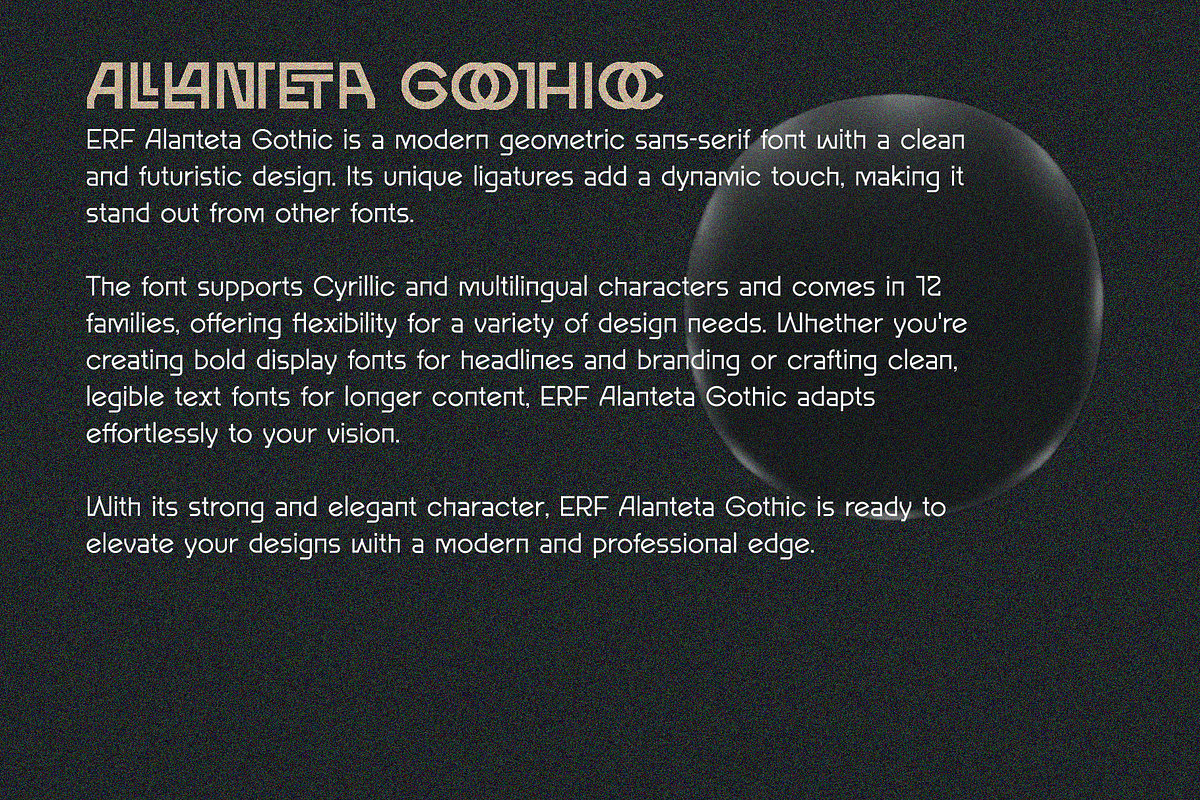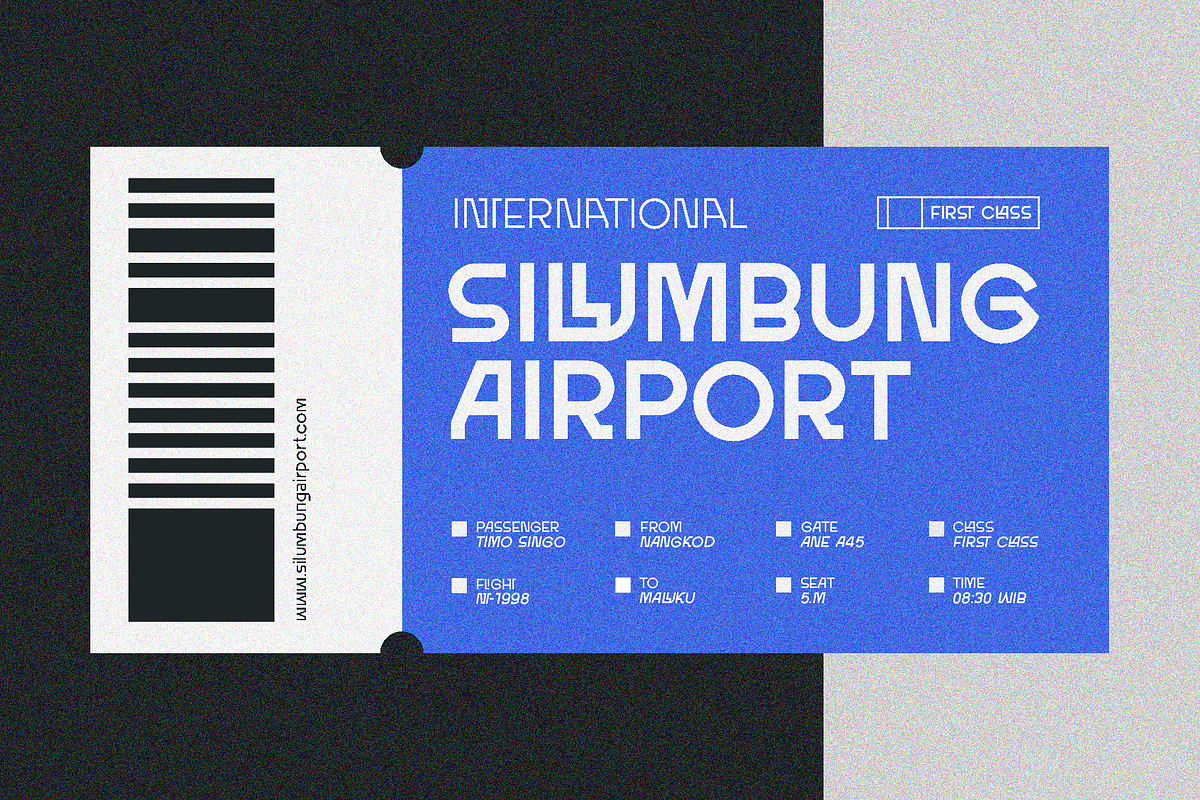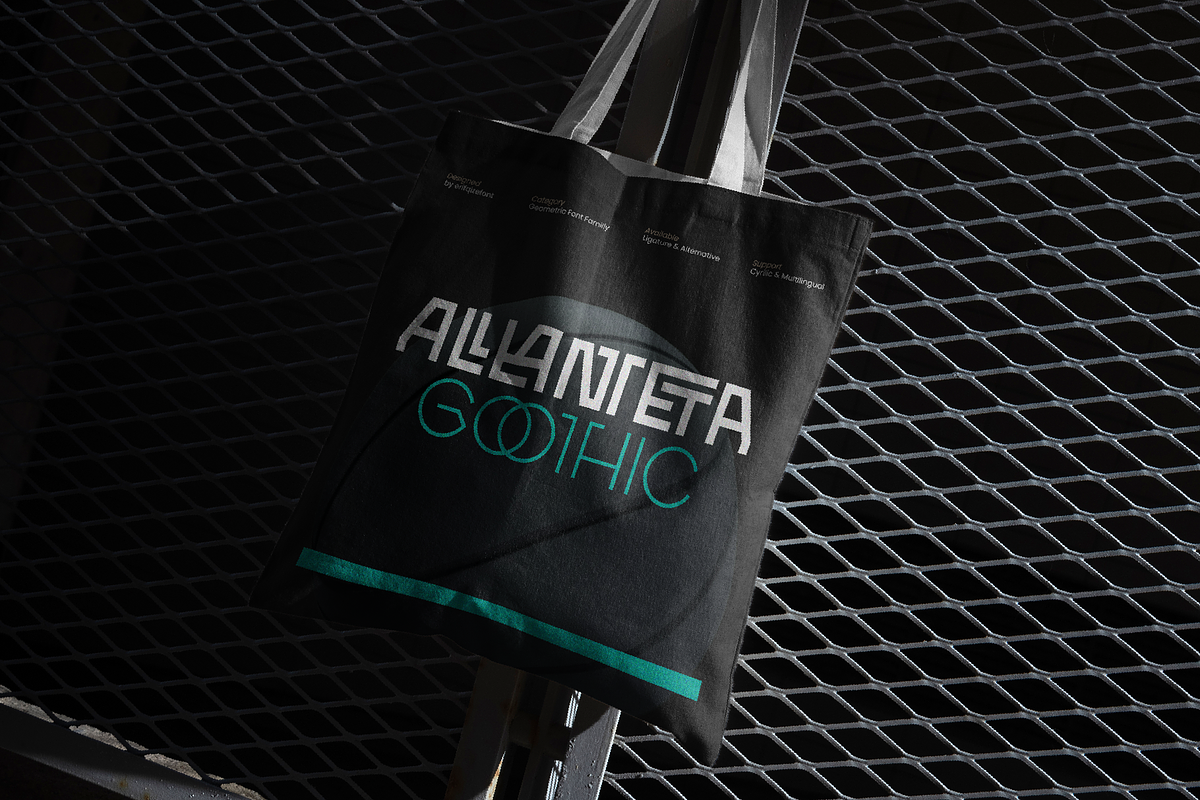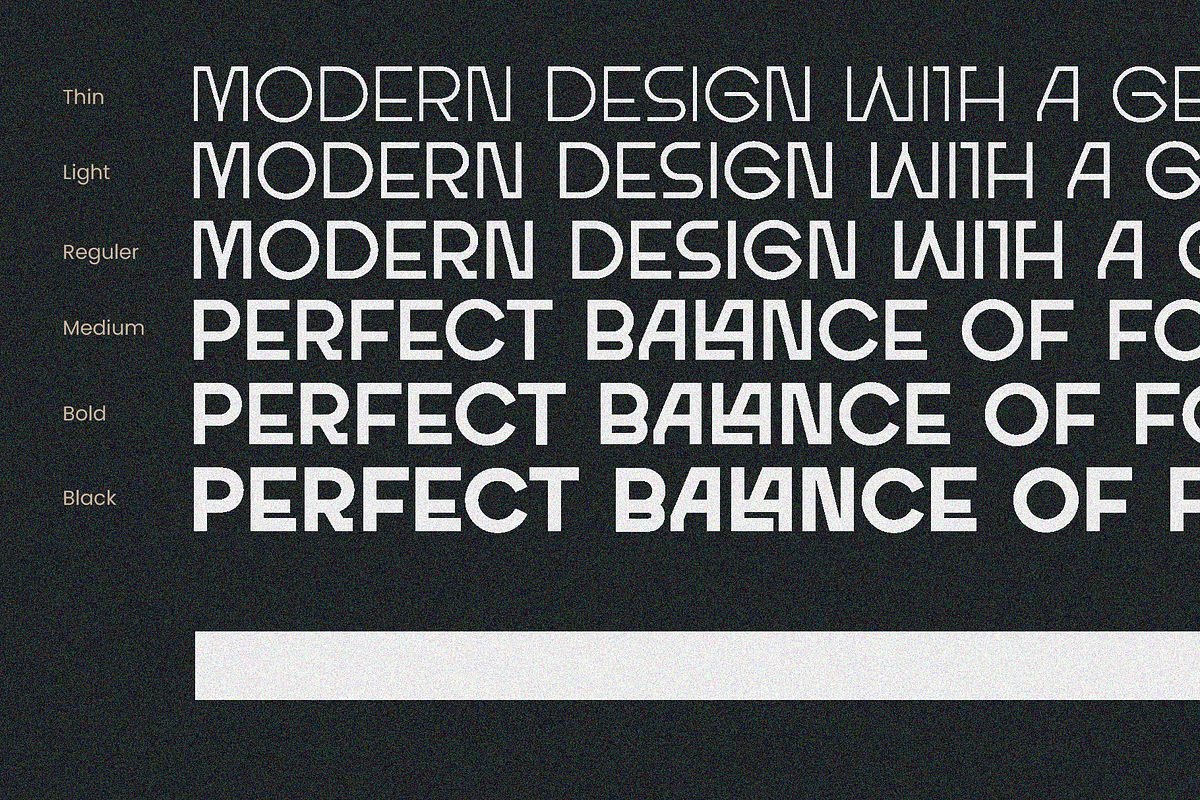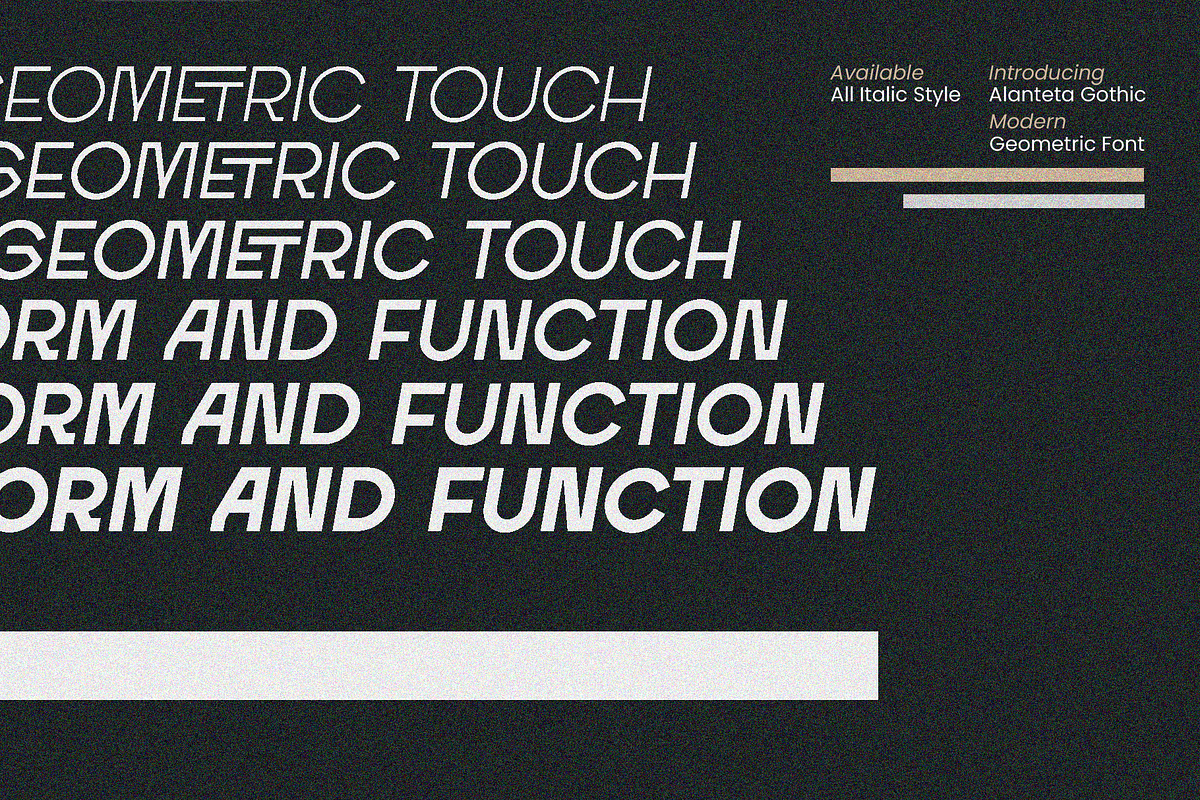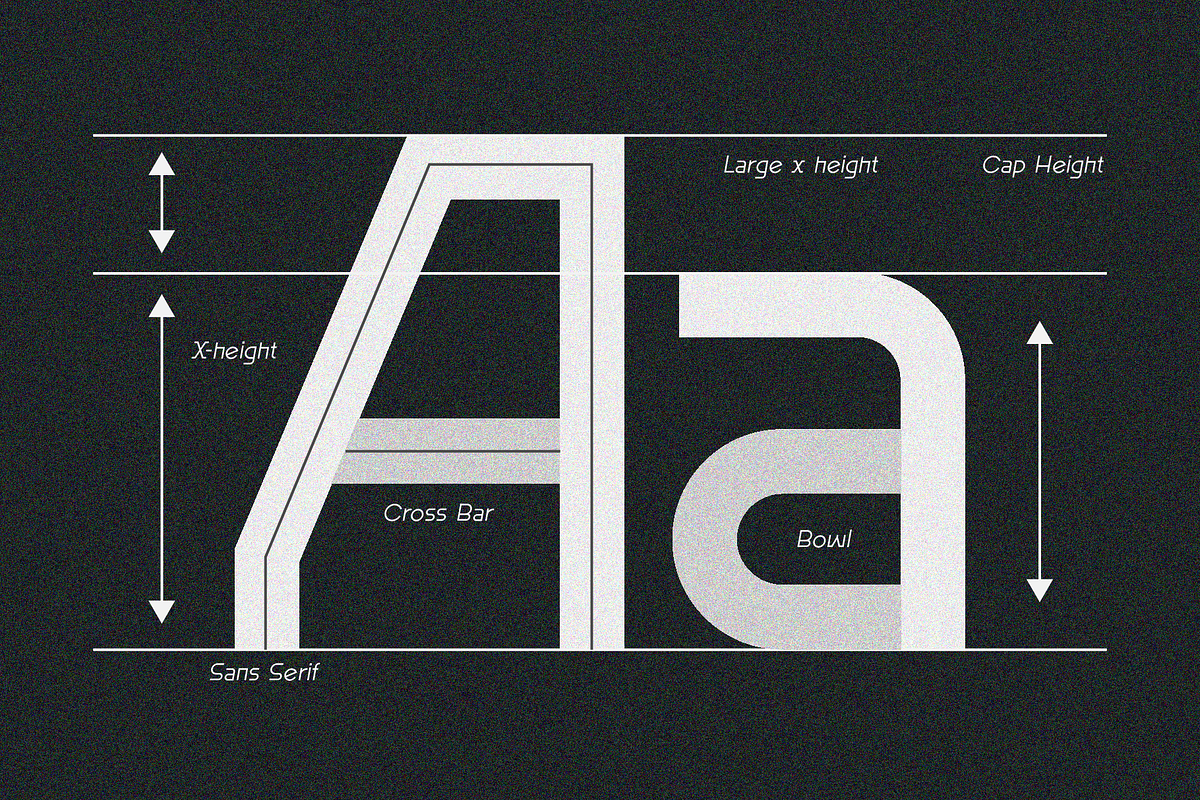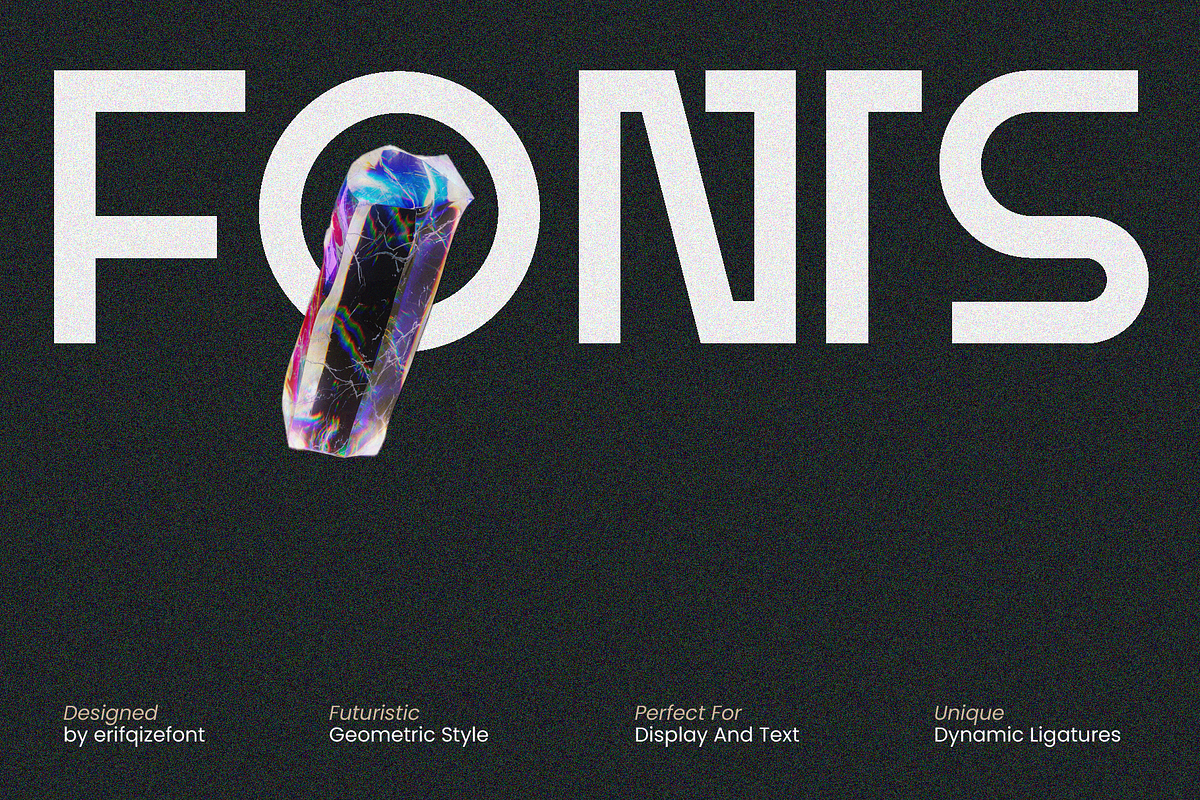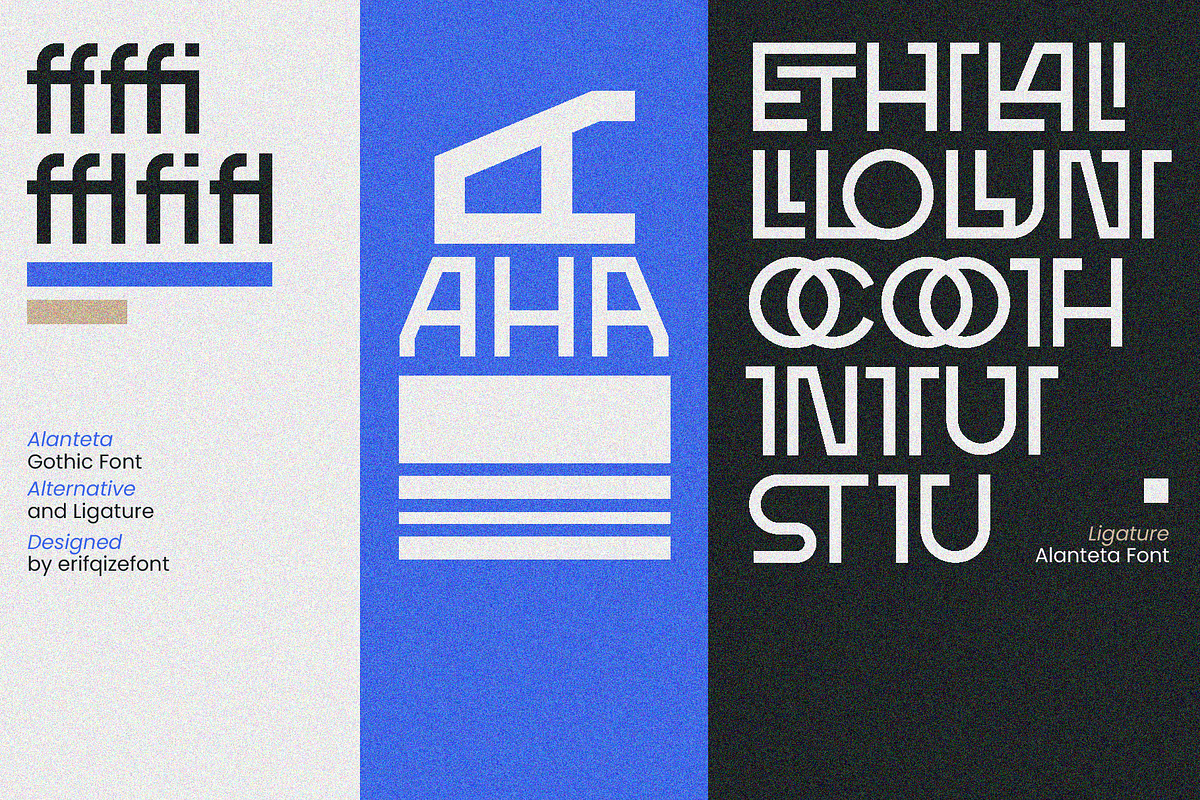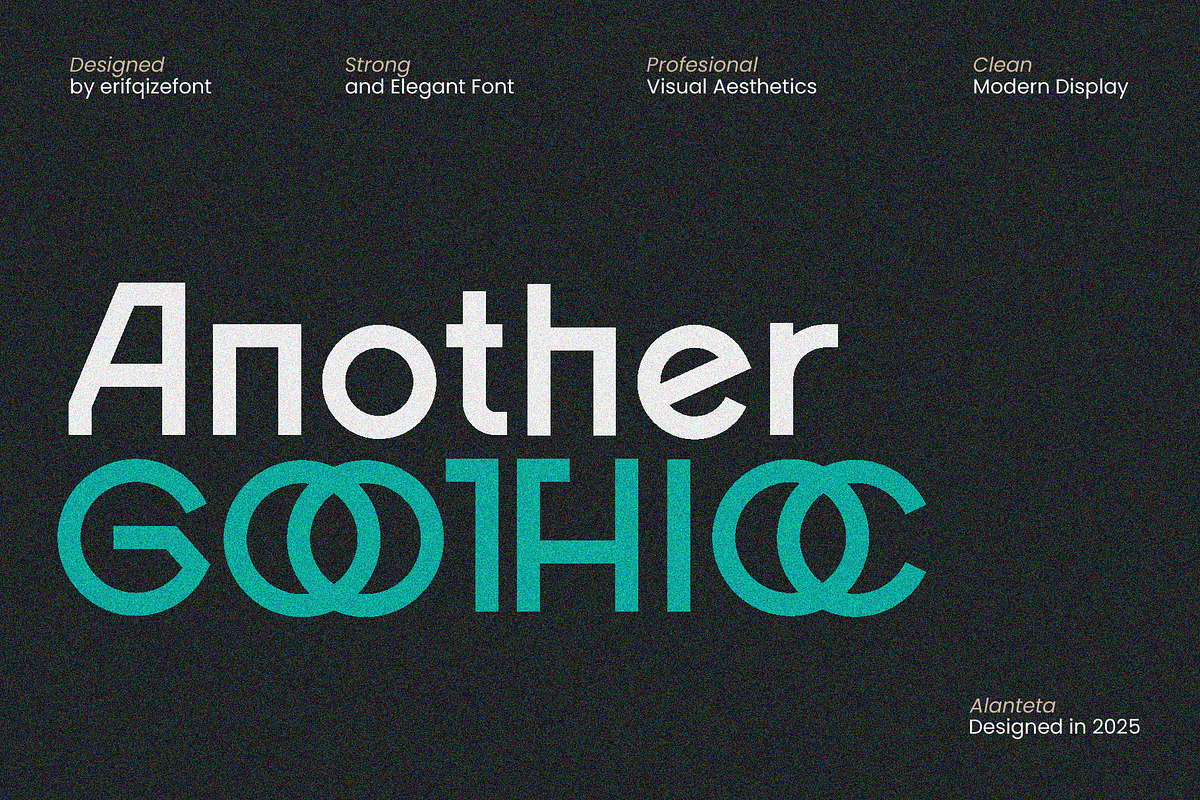
ERF Alanteta Gothic Geometric Font
ERF Alanteta Gothic is a modern geometric sans-serif font with a clean and futuristic design. Its unique ligatures add a dynamic touch, making it stand out from other fonts.
The font supports Cyrillic and multilingual characters and comes in 12 families, offering flexibility for a variety of design needs. Whether you're creating bold display fonts for headlines and branding or crafting clean, legible text fonts for longer content, ERF Alanteta Gothic adapts effortlessly to your vision.
With its strong and elegant character, ERF Alanteta Gothic is ready to elevate your designs with a modern and professional edge.